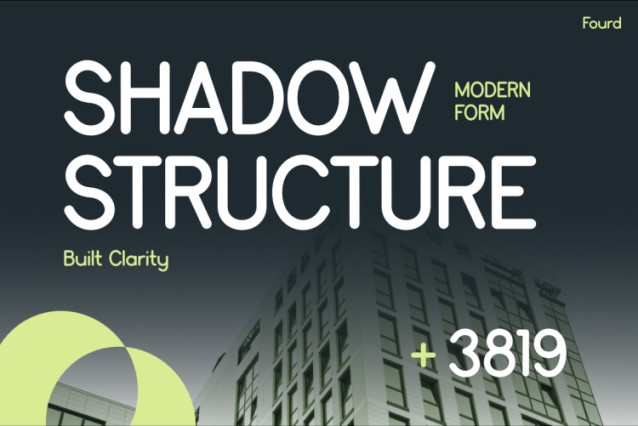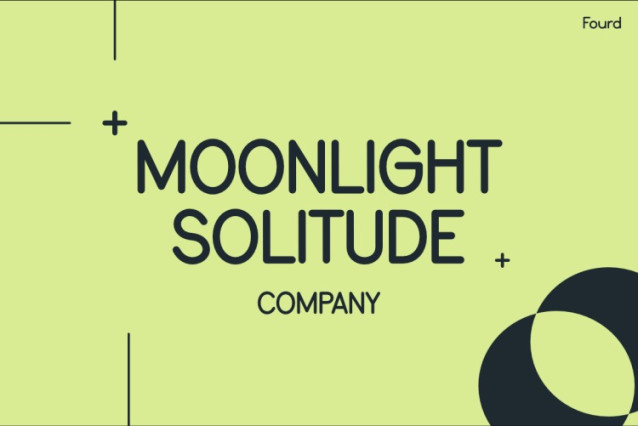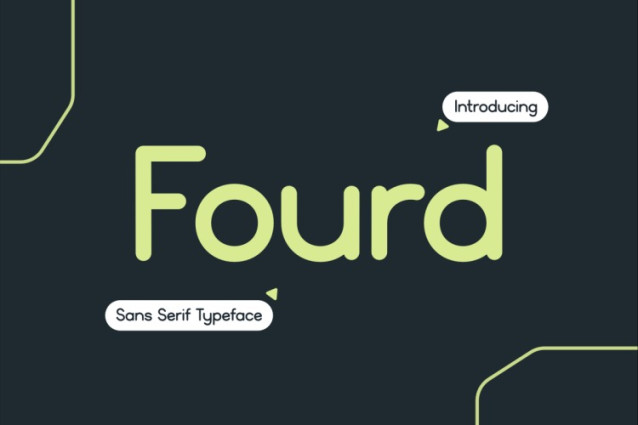
Fourd Font a confident, forward-looking tone that instantly communicates clarity, balance, and modern intelligence. From the very first glance, this typeface feels architectural and intentional. Its clean sans-serif construction, rounded geometry, and precise spacing create a visual language that feels both futuristic and human. Moreover, the subtle contrast between soft curves and strong lines gives Fourd a unique personality—calm, minimal, yet powerful. As shown across the visuals, the font performs consistently in large headlines and compact layouts, making every message feel structured, readable, and premium. Because of this, Fourd is not just visually attractive; it also functions as a reliable communication tool for modern design needs.
Futuristic Font Fourd is designed for creators who value clarity, space, and modern aesthetics. It delivers a refined balance between simplicity and character, which allows content to breathe while staying visually engaging. In addition, its smooth letterforms and stable proportions help guide the reader’s eye naturally across layouts. Whether used on posters, branding materials, digital interfaces, or editorial graphics, Fourd maintains a clean and confident presence. The font adapts effortlessly to light and dark backgrounds, and therefore works perfectly in contemporary design systems. Furthermore, its versatility makes it ideal for combining with bold imagery, geometric shapes, and minimal color palettes. As a result, Fourd supports storytelling that feels intelligent, calm, and forward-thinking.
Futuristic Font Fourd is especially suitable for architects, tech startups, creative studios, product designers, and digital brands that want to project a modern and trustworthy image. It works extremely well for UI/UX design, corporate branding, technology presentations, podcasts, urban lifestyle visuals, and minimalist packaging. Likewise, content creators, agencies, and social media designers will find Fourd useful for clean Instagram posts, banners, and promotional graphics. Because of its readability and modern tone, it is also a strong choice for editorial layouts, signage, and corporate communication materials.